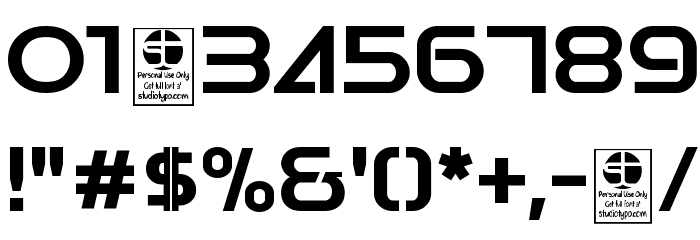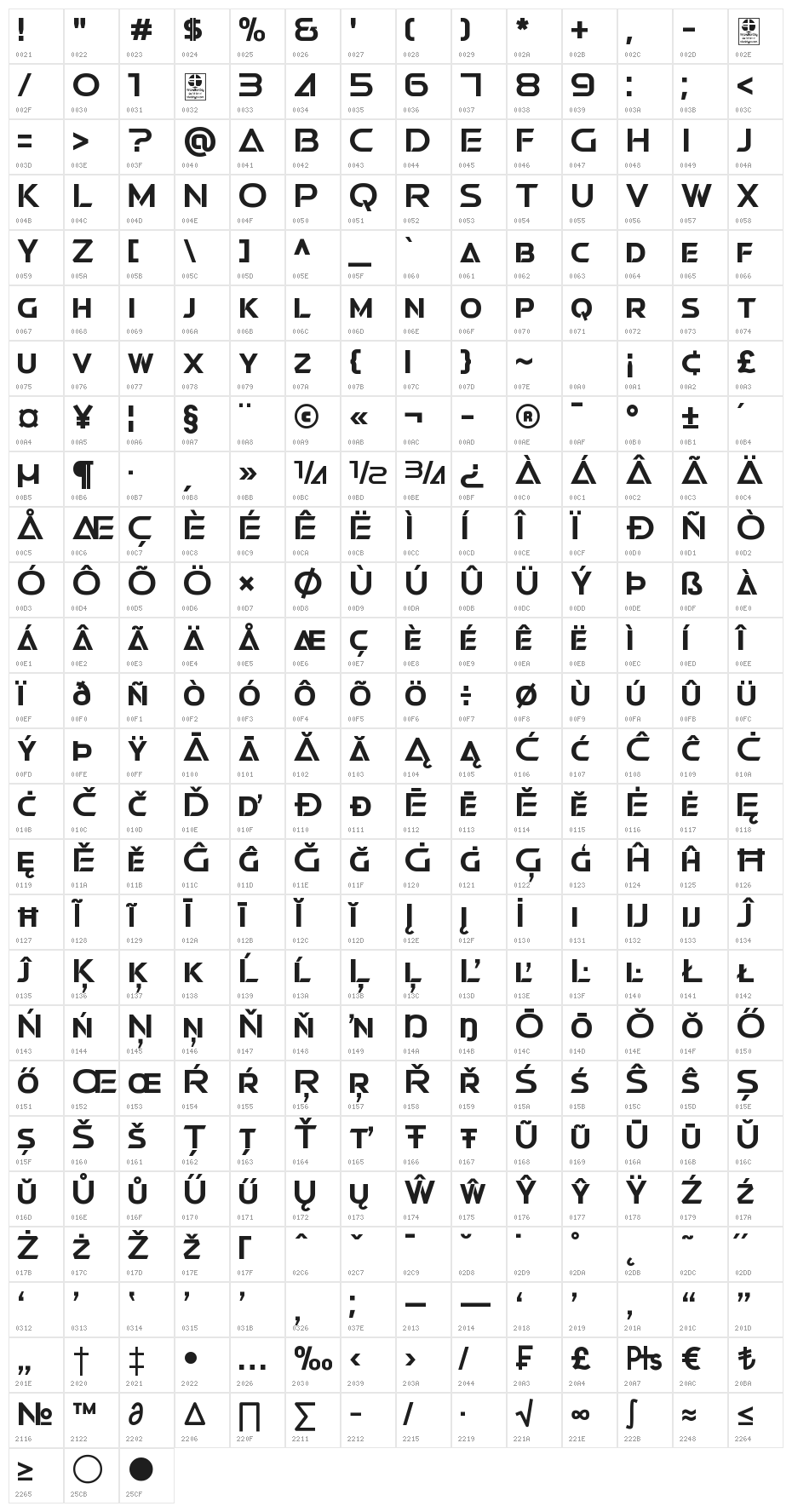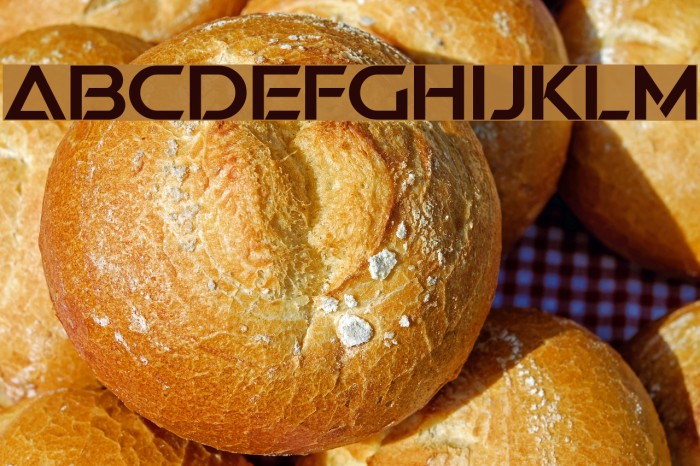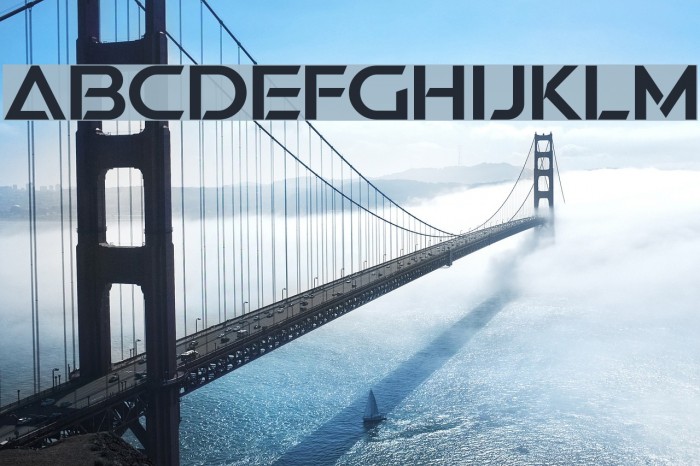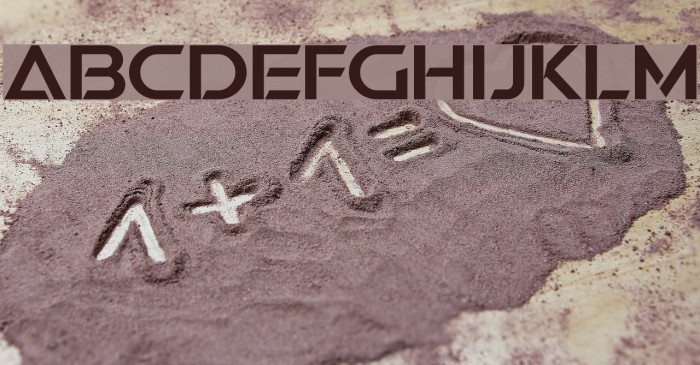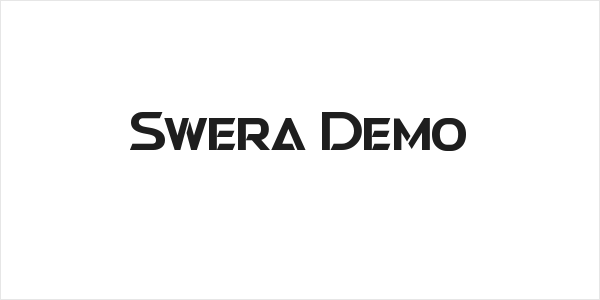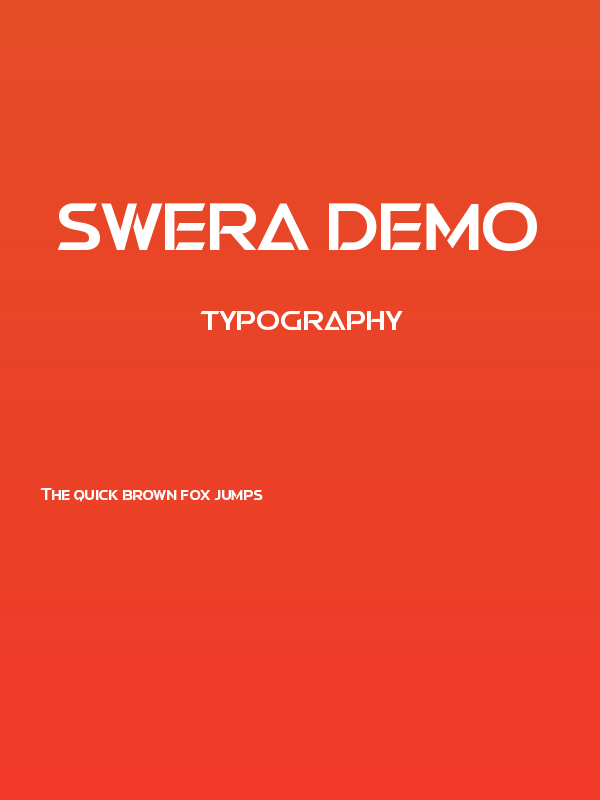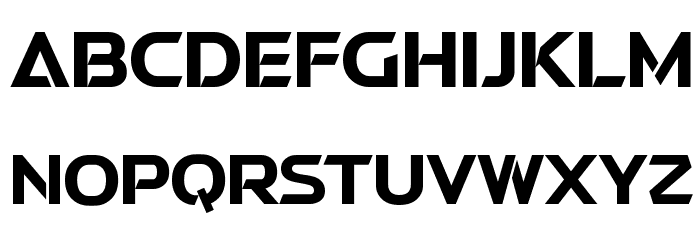
Swera Demo Font
Swera Demo Description
This font features a bold and geometric design with sharp angles and clean lines, creating a futuristic and modern appearance. The uppercase letters are uniform in height, while the lowercase letters maintain a consistent style, offering a cohesive look. The numerals are distinct and easy to read, complementing the overall design. Special characters are included, maintaining the same bold and angular style, making this font versatile for various uses. The font's strong presence makes it suitable for attention-grabbing headlines and impactful logos.